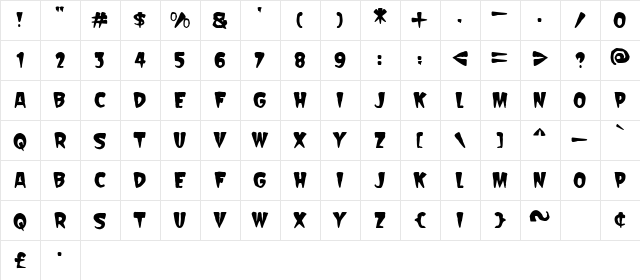
Scarify Italic
| Designer | Joseph Dawson |
Design Context for Scarify Typeface
Scarify is a composed and adaptable typeface that performs quietly and consistently across a wide range of design contexts. Its italic angle brings a sense of urgency and motion to the letterforms.
Pro Tip: Use Scarify for emphasis, pull quotes, and subheadings where its slanted energy can add rhythm to the layout.